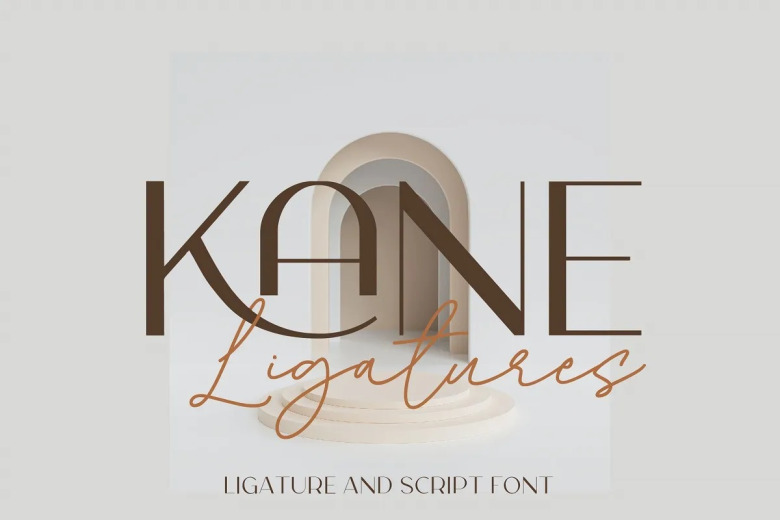
Kane Font
Kane is a stylish and elegant font duo – sans serif and script font. its perfect for many different projects with its beautiful and unique style.
Kane Font Duo